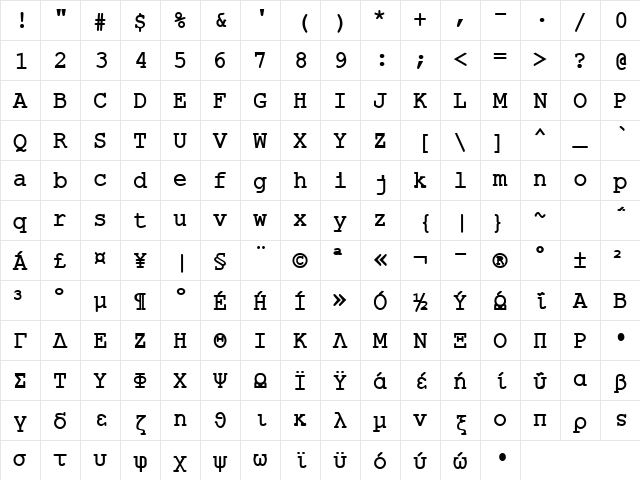
HellasCour Bold Free Font
HellasCour Bold
HellasCour Family
Complete HellasCour Bold glyph index. Displaying only characters natively supported by HellasCour Bold font.
Design Context for HellasCour
HellasCour is a composed and adaptable typeface that performs quietly and consistently across a wide range of design contexts. Its bold stroke weight gives it real presence on the page.